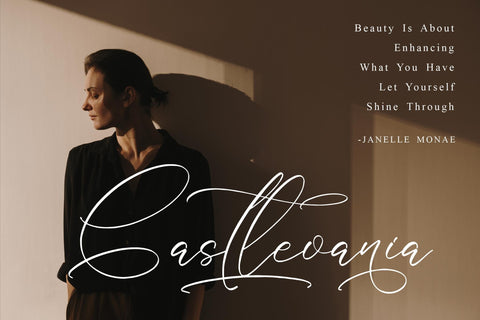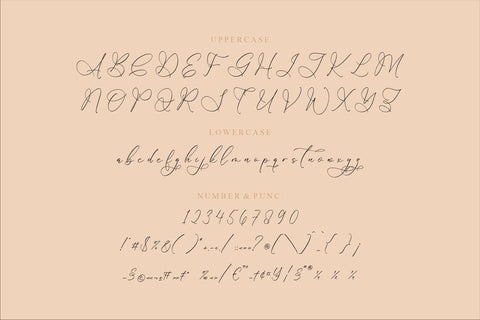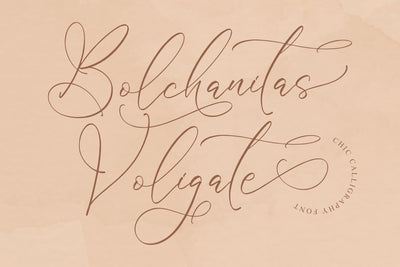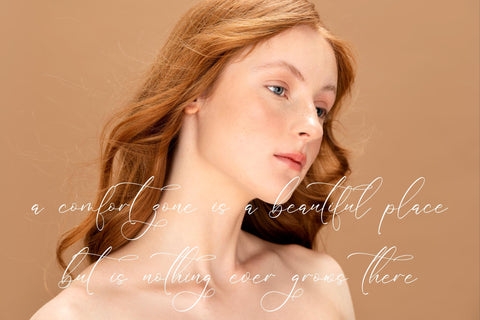
Bolchanitas Voligate - Chic Calligraphy Font
Proudly present Bolchanitas Voligate - Chic Calligraphy Font , created by Storytype,
A luxury script that has own unique style & modern look.